What fonts are used here?
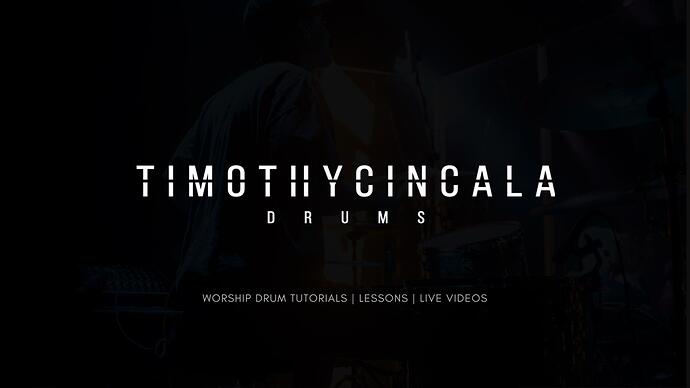
The top two lines look like Bebas Neue Regular. The horizontal line is a manual alteration. The bottom line looks like Futura Regular, but it’s too small and lo-res to be sure.